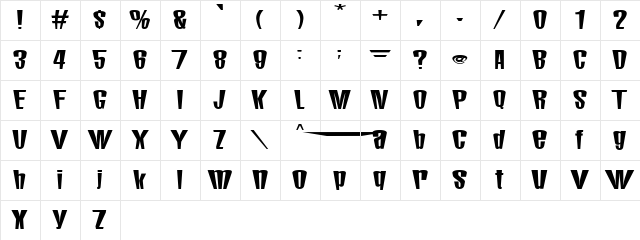
MunsterMash Bold
Design Context for MunsterMash Typeface
MunsterMash is a composed and adaptable typeface that performs quietly and consistently across a wide range of design contexts. Its bold stroke weight gives it real presence on the page.
Pro Tip: Use MunsterMash in both headline and body roles to test its range before committing to a single application.